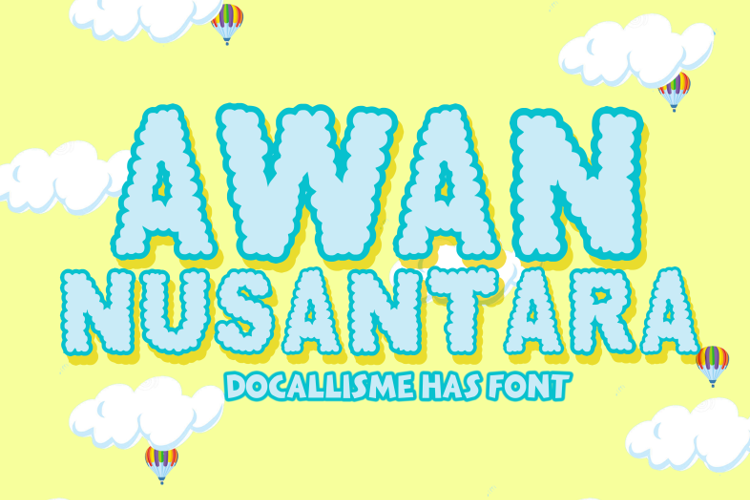
AWAN NUSANTARA Font
About AWAN NUSANTARA Font
Awan Nusantara is a fun display typeface. It will lift your design and add a cheeky touch to each of your creations. Use this font for your designs and explore its endless possibilities.